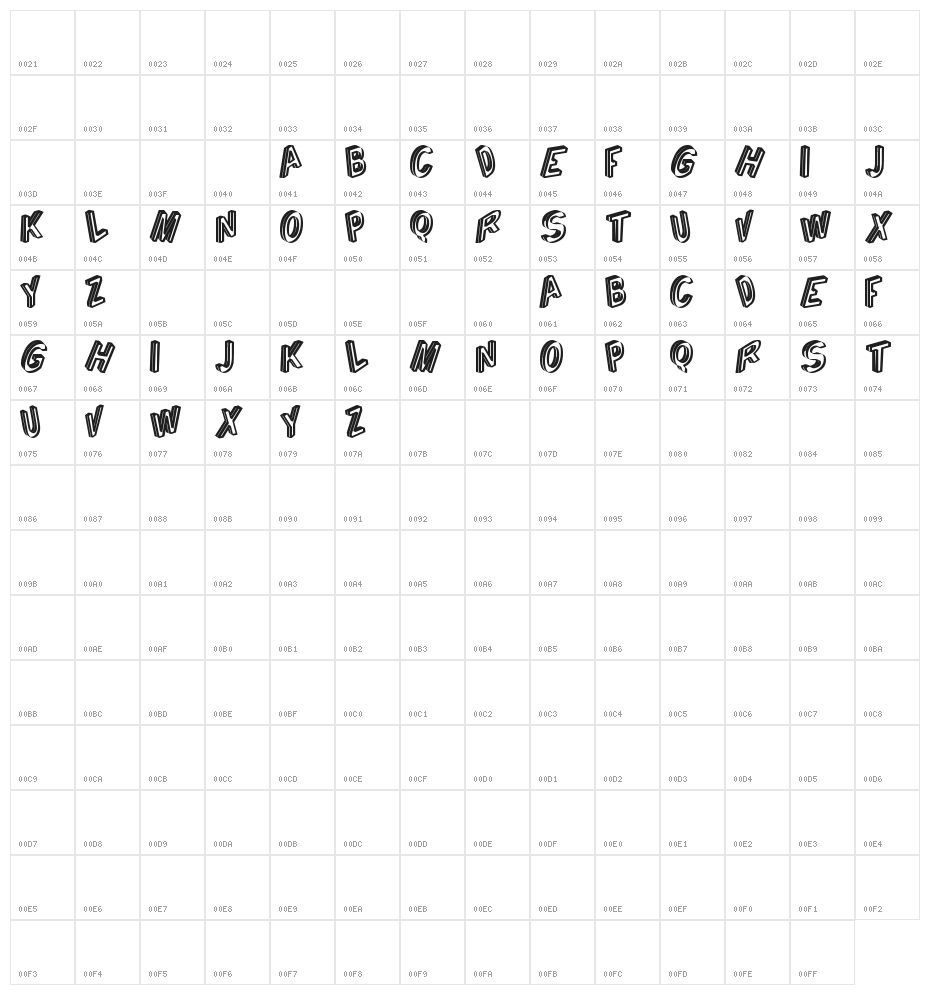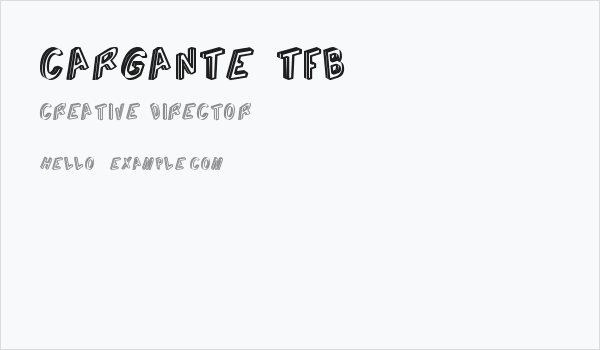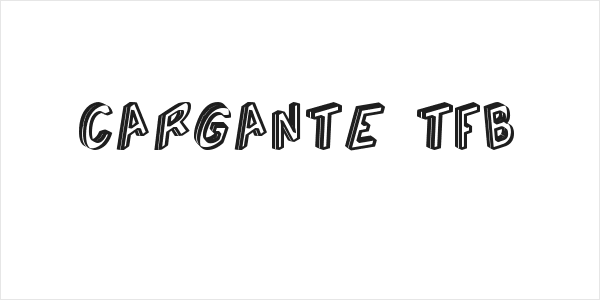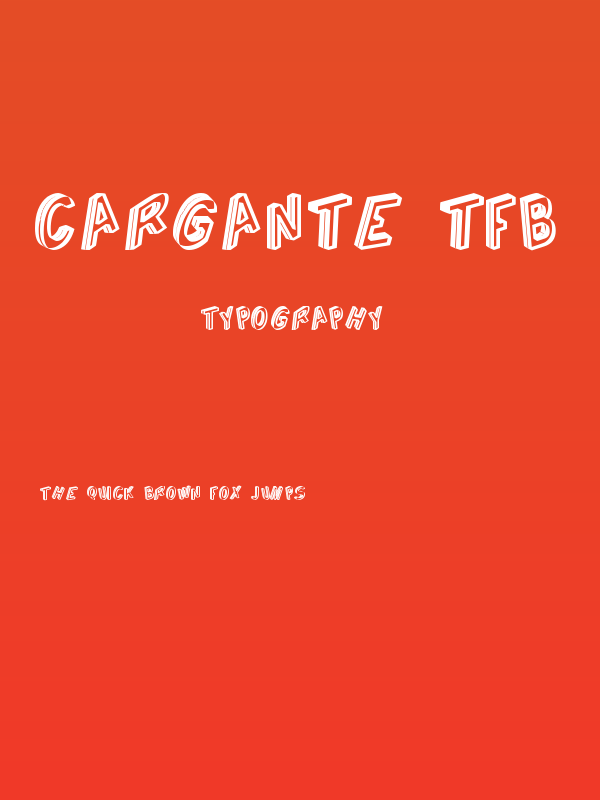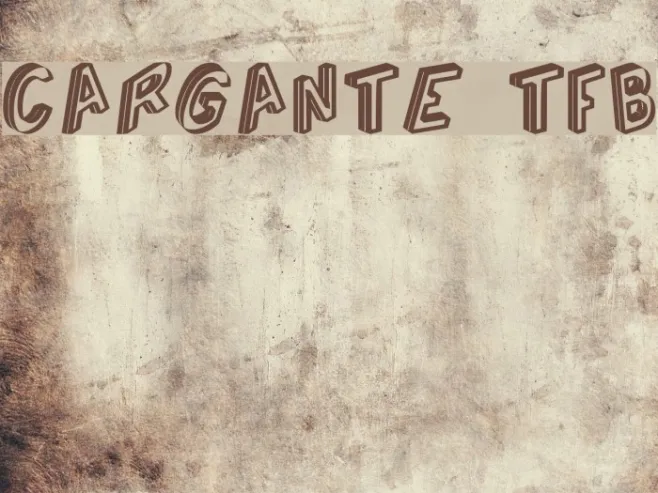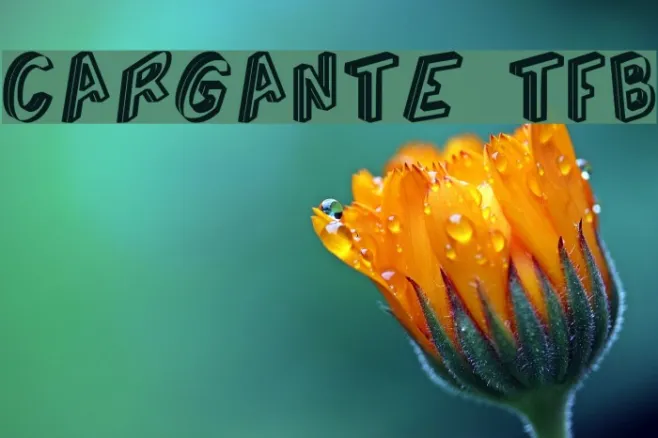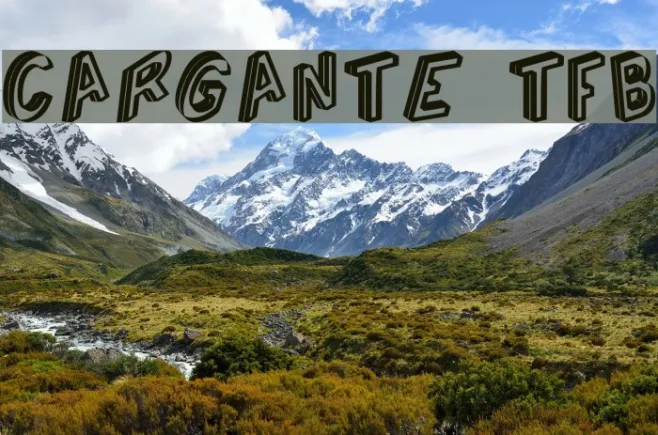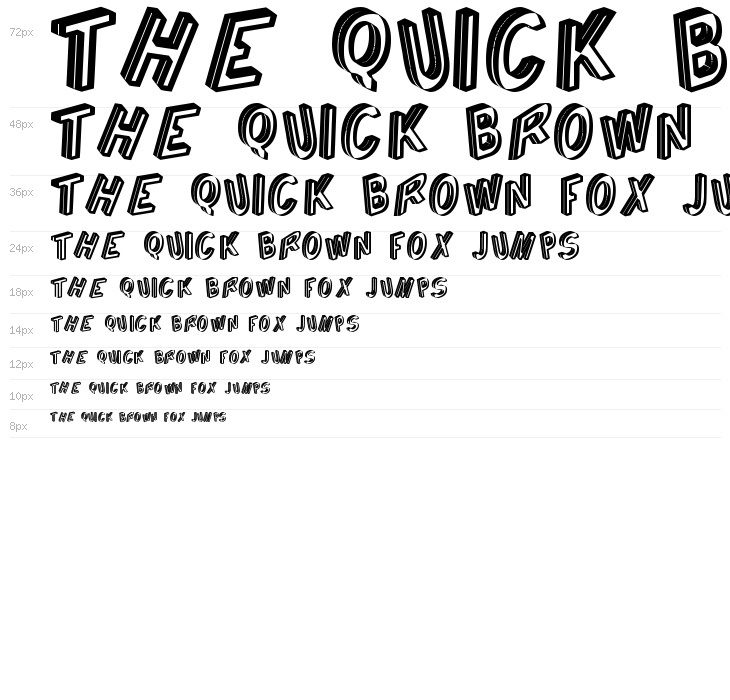
Cargante tfb Font
Cargante tfb Description
This font features a bold, three-dimensional design with a playful and dynamic appearance. Each character is outlined with a thick black line, creating a shadow effect that gives depth and a sense of movement. The letters are uppercase, with a consistent height and width, adding to the uniformity of the design. The style is reminiscent of comic book lettering, making it ideal for projects that require a fun and engaging visual impact. The font's unique structure makes it stand out, ensuring that any text using it will capture attention.
| Overall Style | Playful, Comic |
| Proposed Projects | Ideal for comic books, children's book covers, posters, and playful branding. |